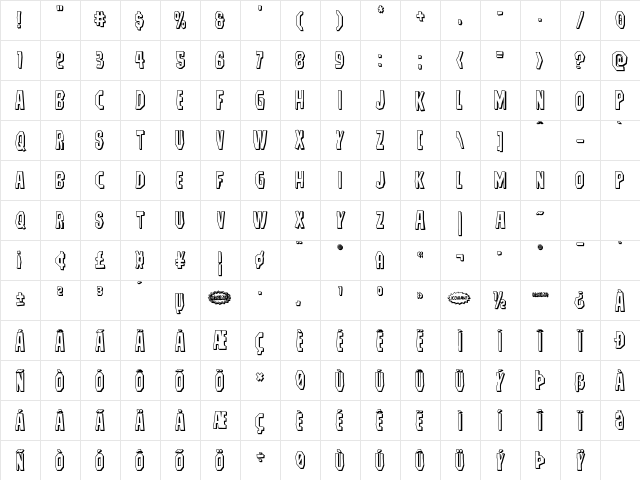
Hitchblock 3D Regular Free Font
Hitchblock 3D Regular
Design Context for Hitchblock 3D
Hitchblock 3D is a composed and adaptable typeface that performs quietly and consistently across a wide range of design contexts.
Pro Tip: Use Hitchblock 3D in both headline and body roles to test its range before committing to a single application.